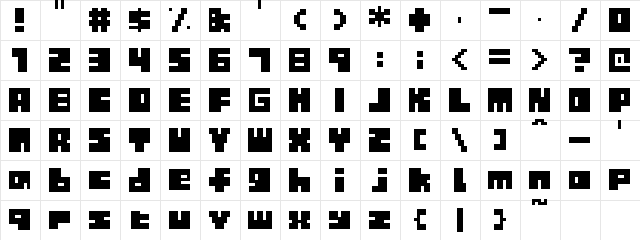
Tiny Box BlackBitA8 Regular Font Preview
Tiny Box BlackBitA8 Regular
Design Context for Tiny Box BlackBitA8 Typeface
Tiny Box BlackBitA8 offers clean, dependable letterforms without strong stylistic allegiance, making it a practical choice for designers who need flexibility.